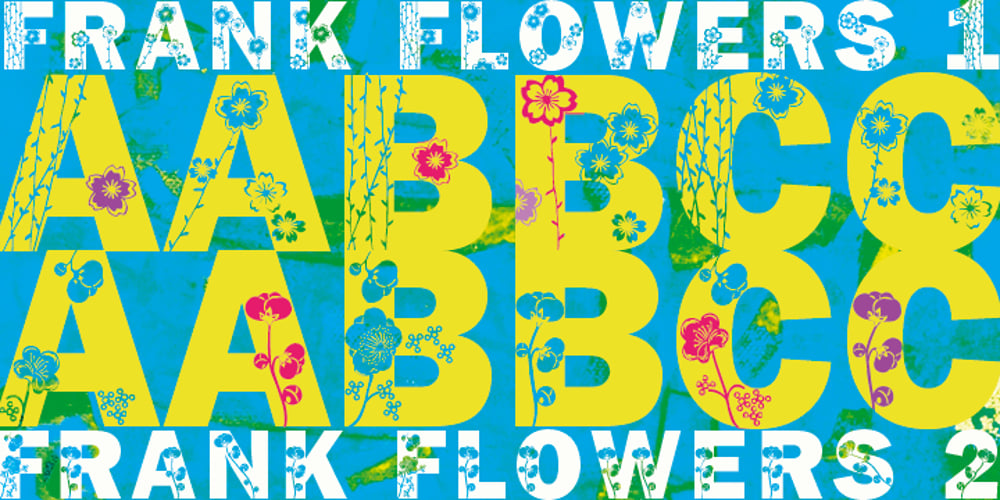
Frank Flowers Font Family was designed by Gert Wiescher and published by Wiescher Design. Frank Flowers contains 2 styles and family package options. Frank Flowers are fonts with flowery embellishments. They are useful for all kinds of celebrations, but they also have lots of impact. There are only uppercase letters even on the lowercase keys. Uppercase and lowercase look different, so you can mix them. You can even mix the two sets, it’ll look great. I had a lot of fun doing these fonts and I want you to have some fun as well. That’s why I sell them very, very cheap, even cheaper if you buy the pair! -Your typedesigner for unusual solutions Gert Wiescher